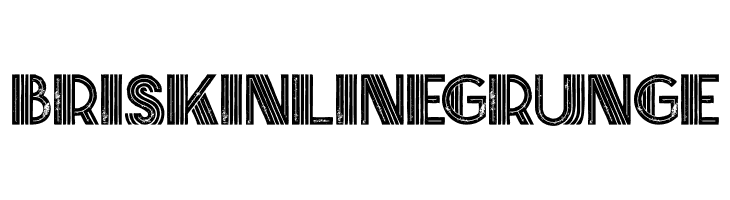
( Fonts by 28fonts )
A playful, hand-drawn font with bold, irregular letterforms and a whimsical style.
( Font by Jonathan Harris - www.tattoowoo.com )
A playful, floral-decorated font with whimsical curves and elegant numbers.
A bold, graffiti-inspired font with dynamic and energetic strokes.
A bold, graffiti-inspired font with a dynamic, hand-drawn style.
( Fonts by Fanastudio )
A playful and dynamic handwritten font with fluid, slightly slanted letterforms.
A stylish cursive font with elegant loops and flourishes.
A bold, textured font with a distressed, vintage appearance.
( Fonts by Yusril Muhtadi )
A dynamic, expressive handwritten font with fluid strokes and a brush-like texture.
A dynamic and expressive handwritten font with fluid strokes.